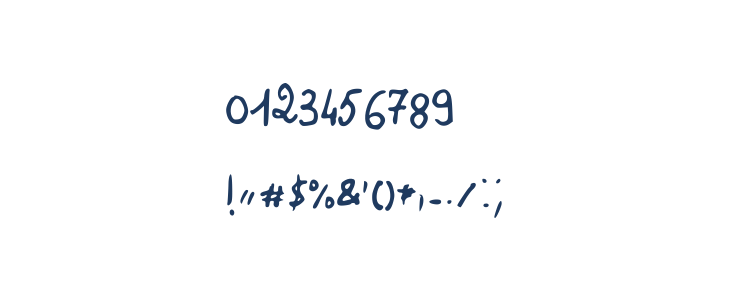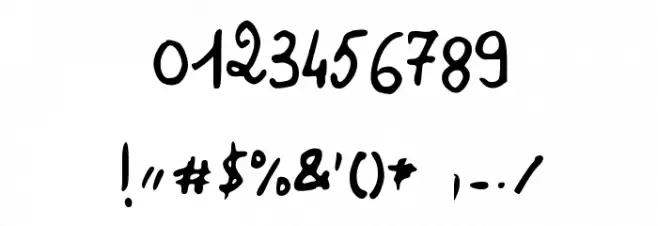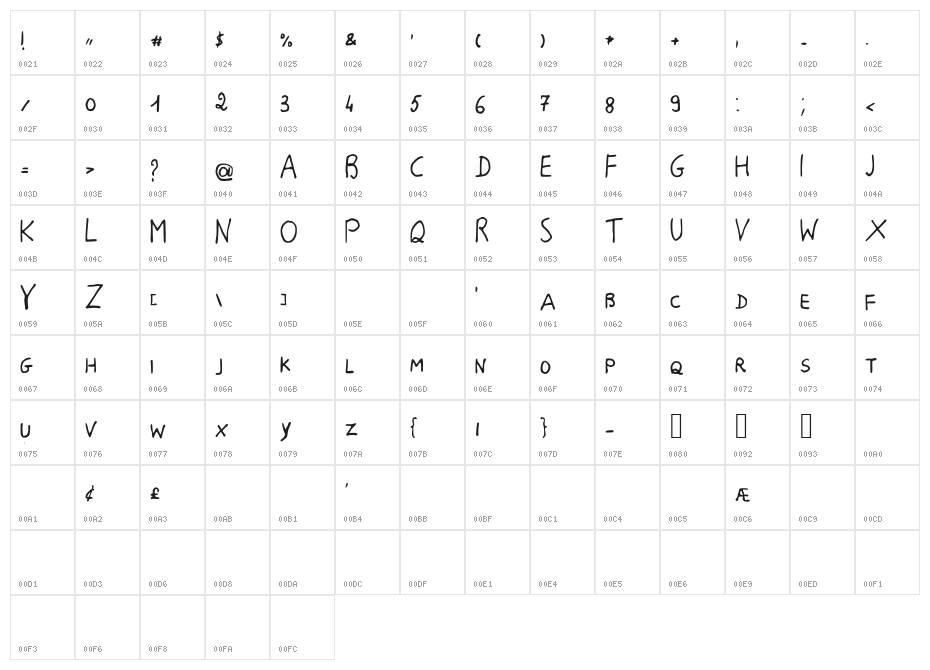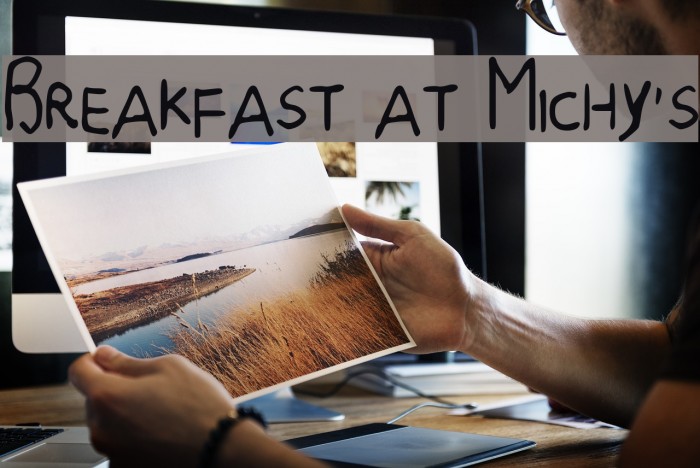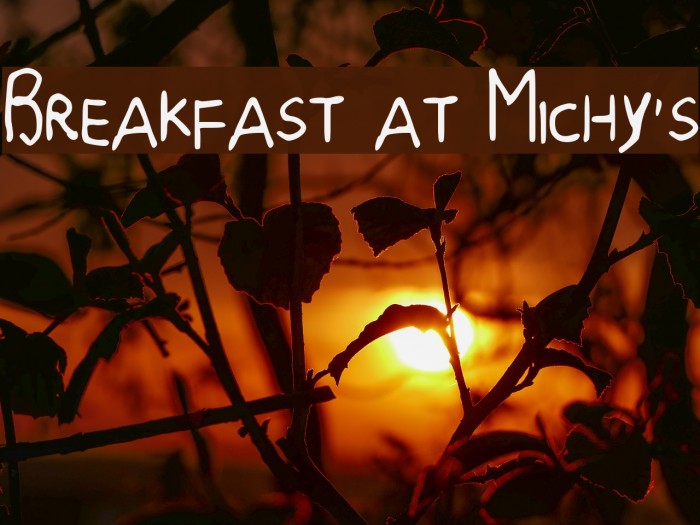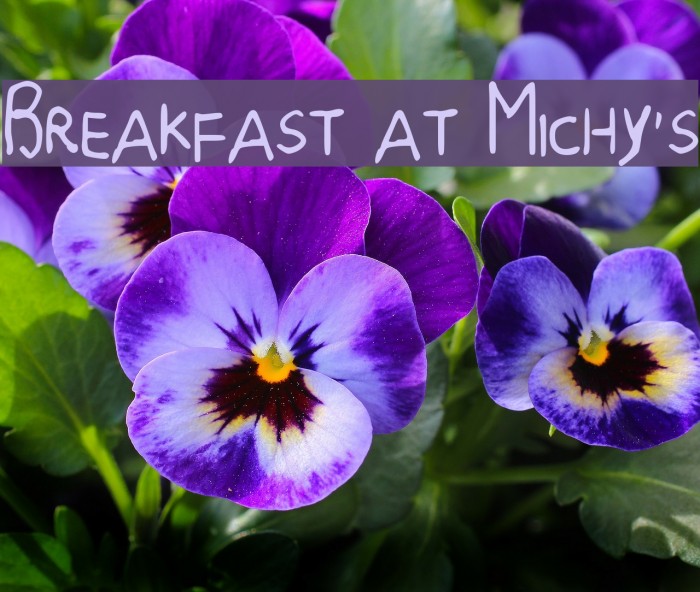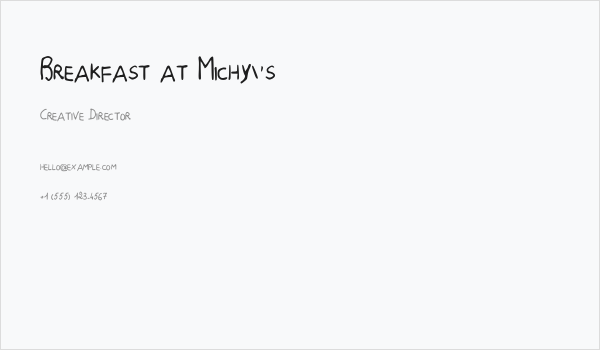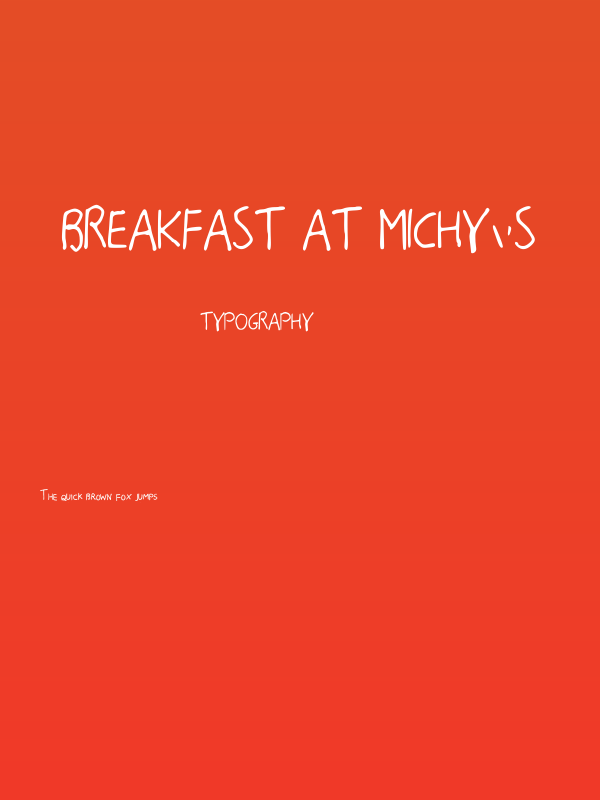
Breakfast at Michy's Font
Breakfast at Michy's Description
This font exudes a playful and casual vibe, characterized by its hand-drawn appearance. The letters are slightly irregular, giving it a whimsical and informal feel. The uppercase and lowercase letters maintain a consistent style, with rounded edges and a slightly uneven baseline. The numerals and special characters follow the same playful design, making it suitable for creative and lighthearted projects. Its unique style is reminiscent of handwritten notes, adding a personal touch to any text.